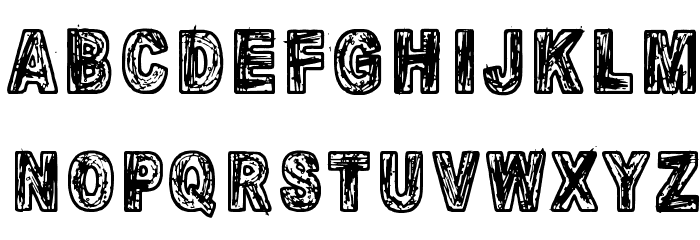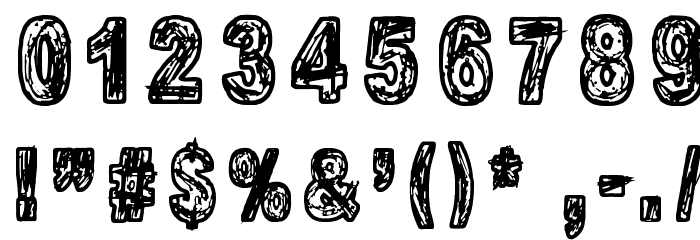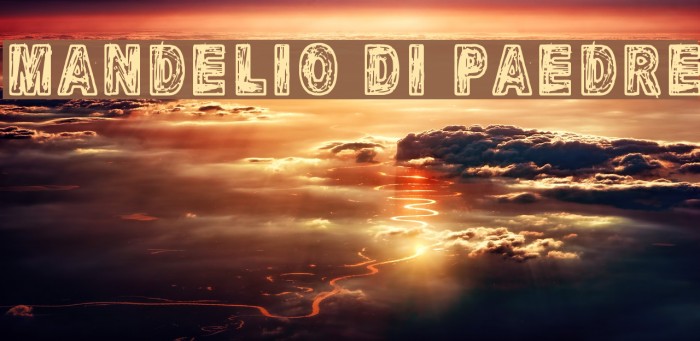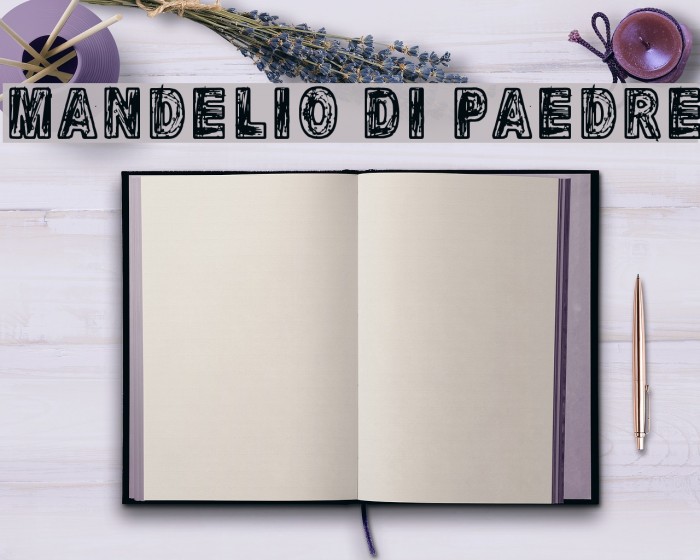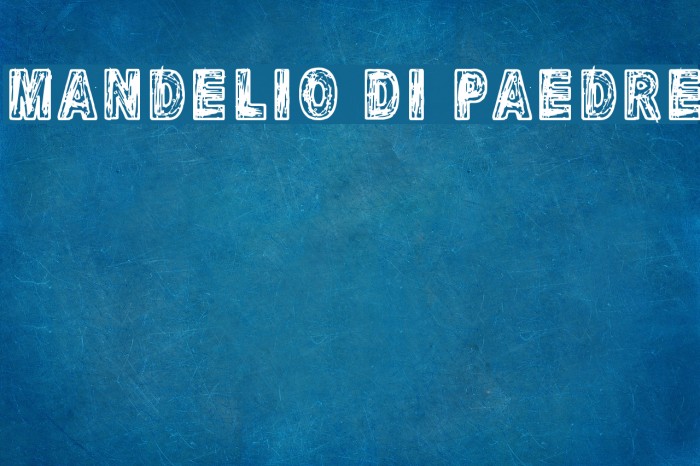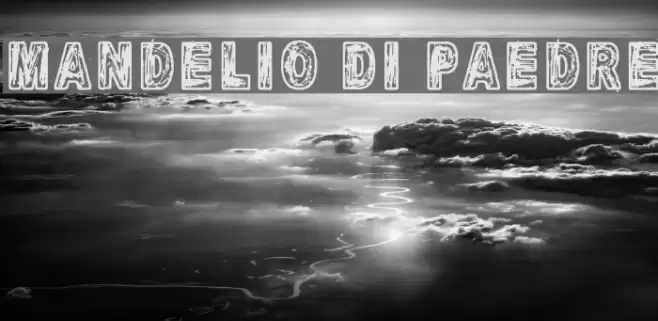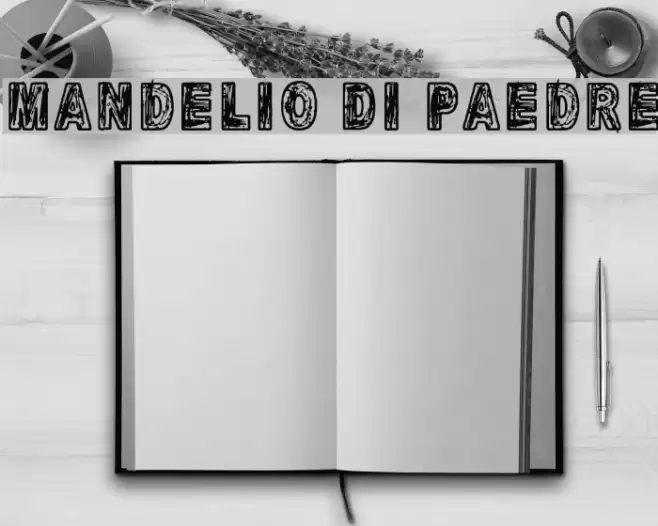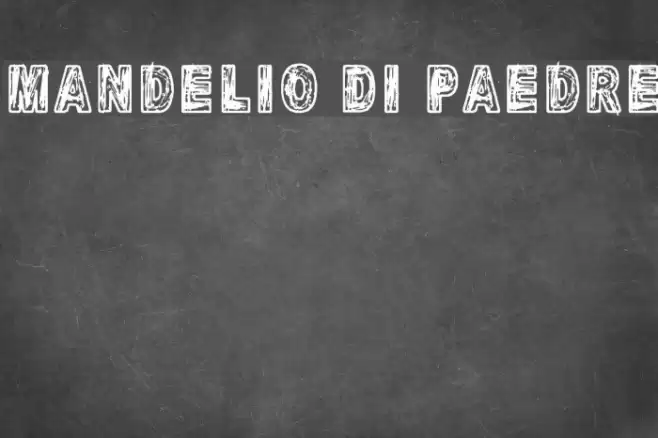
Mandelio Di Paedre Font
This font features a bold, distressed style with a hand-drawn appearance. Each character is filled with a textured pattern that gives it a rugged and artistic look. The uppercase and lowercase letters maintain a consistent design, with thick strokes and uneven edges that add to the font's unique charm. The numbers and special characters follow the same aesthetic, ensuring a cohesive look across all glyphs. This font is ideal for projects that require a bold statement or a creative touch, such as posters, album covers, or artistic branding.
A bold, distressed font with a hand-drawn, textured style.
- Proposed Projects: Ideal for posters, album covers, artistic branding, and creative projects.